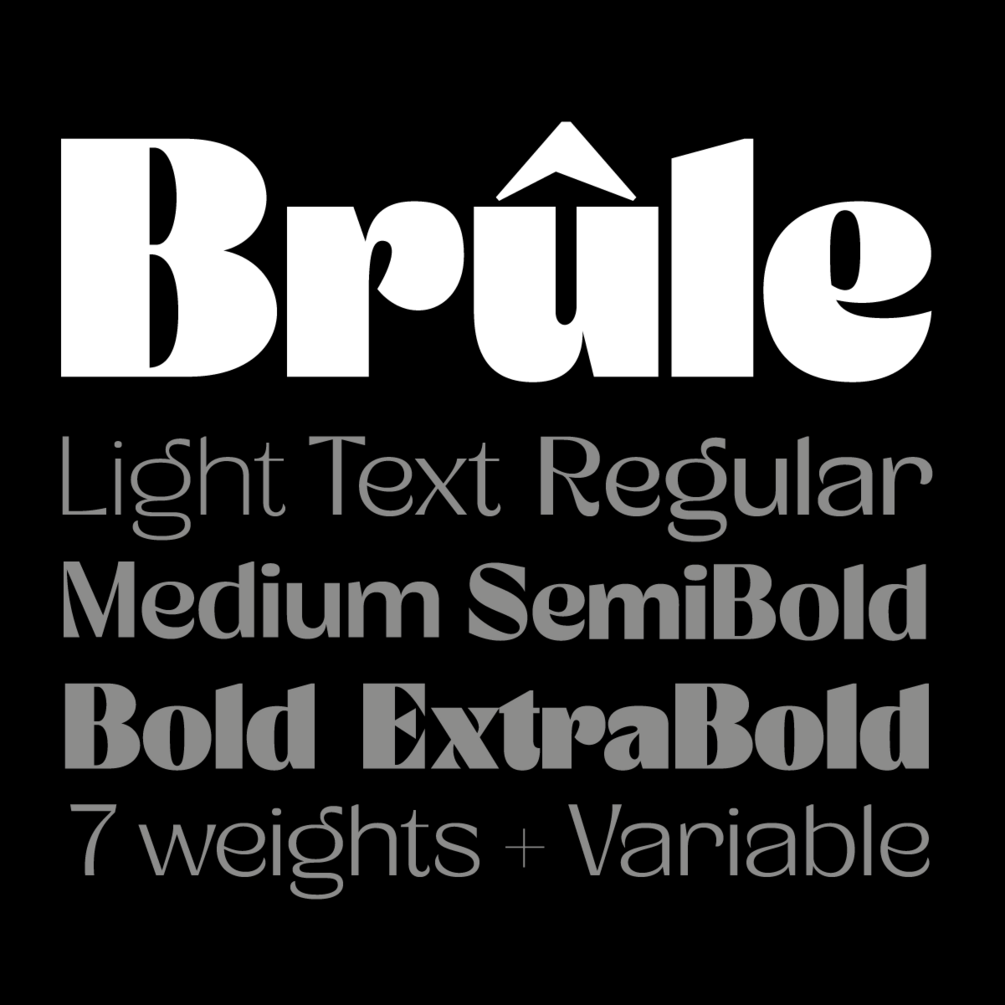
Brule
Brule is a tribute to the 70's graphic design era. A juicy iconic typeface full of opentype features, icons and special glyphs that will make your projects look amazing.  Brule works great for packaging or big display.  The variable font is available with the full family pack.
Designed by Andrei Robu.